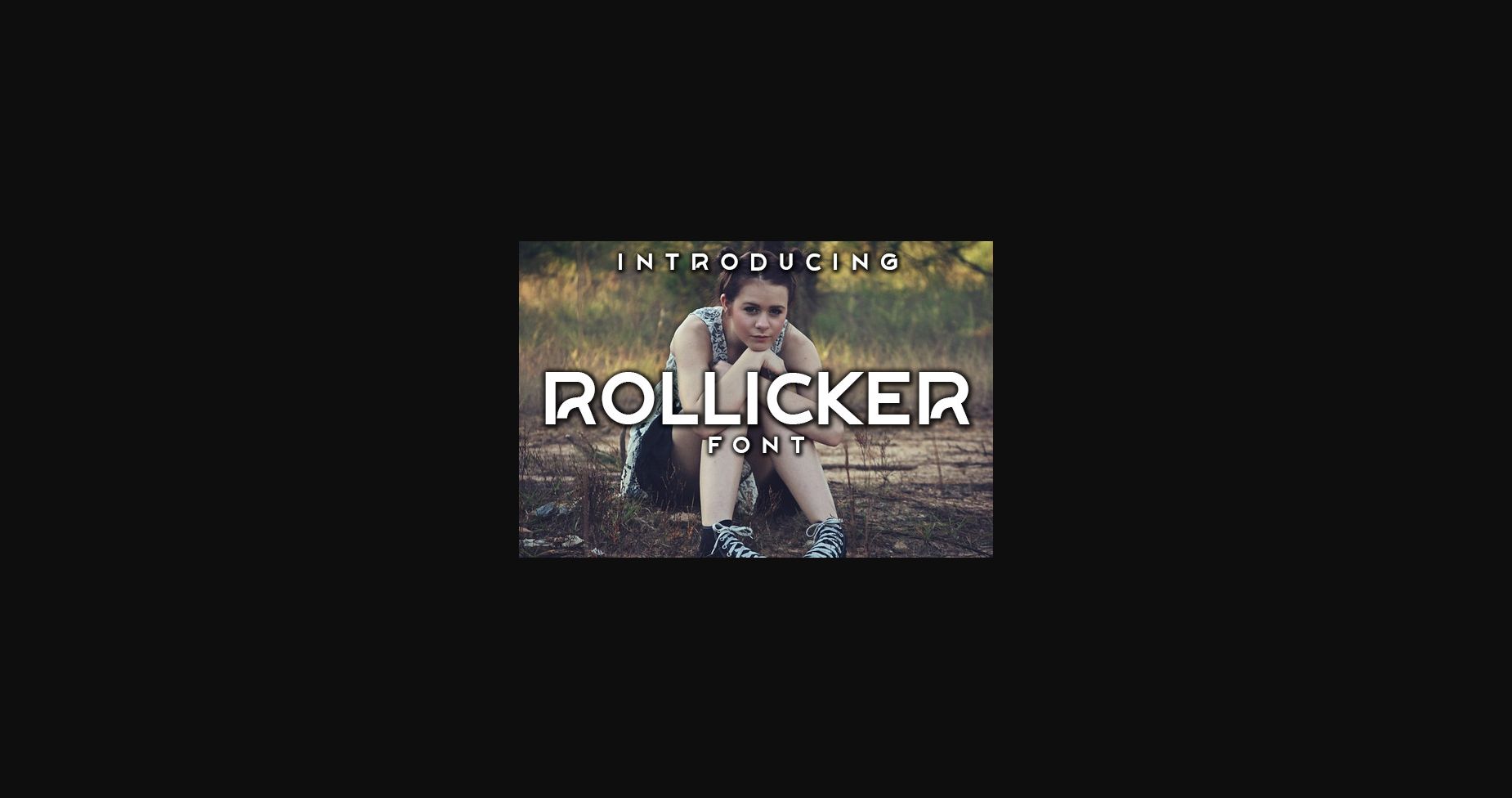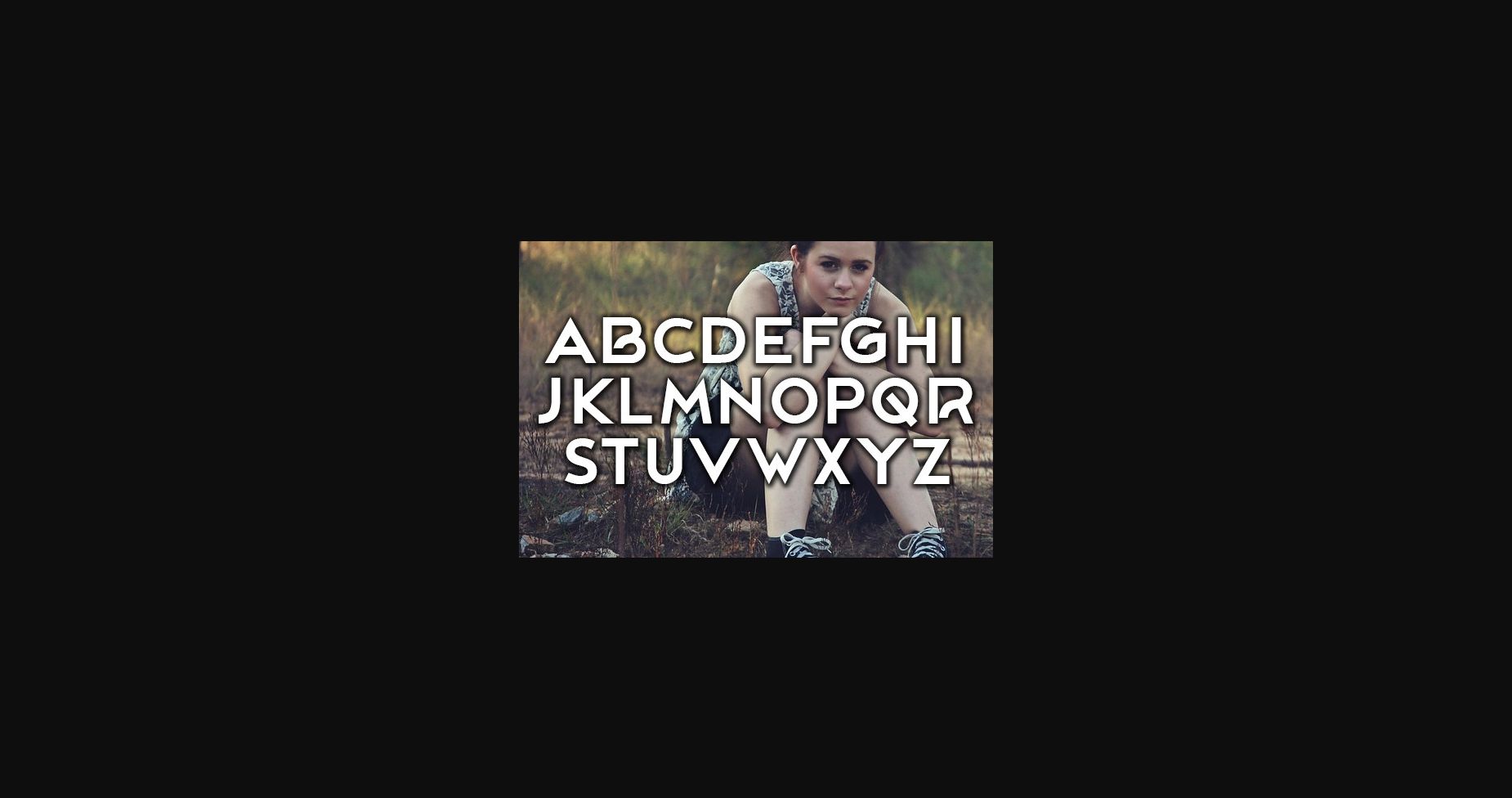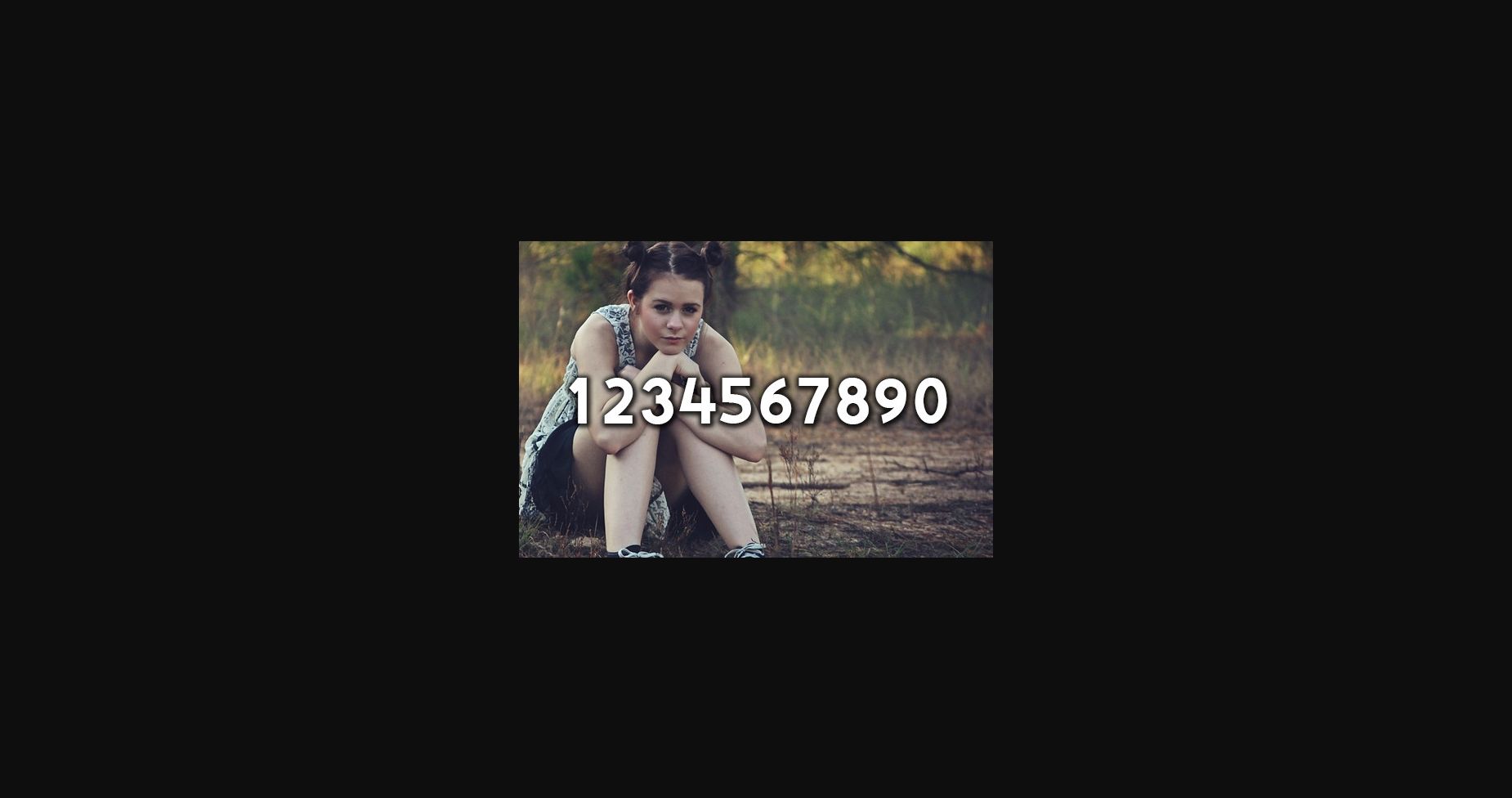
HomeSans Serif FontsRollicker Font Sans Serif Fonts Rollicker Font FacebookXPinterestWhatsApp 1 of 5 ... Rollicker Font Poster 2... Rollicker Font Poster 3... Rollicker Font Poster 4... Rollicker Font Poster 5... About Rollicker Font Rollicker is a cool sans serif font that will fit any of your designs. Use this font on posters, flyers, and t-shirts. DOWNLOAD NOW People also explored Hello Septiemberia Font Humidity Font Nice Looking Font Cartica Font Style Calligraphy Font Restie Font Acoustic House Font Amstilda Alimandi Font 342 0 TagsRollicker Font Previous articleAstella FontNext articleBubbly Font LEAVE A REPLY Cancel reply Comment: Please enter your comment! Name:* Please enter your name here Email:* You have entered an incorrect email address! Please enter your email address here Website: Save my name, email, and website in this browser for the next time I comment. Personal Use Free Leadent Script Personal Use Free Read more about this font Kredit Personal Use Free Read more about this font Kellana Personal Use Free Read more about this font Vuldo Personal Use Free Read more about this font BLOG The 10 Best Handwriting Fonts to Add Personality to Your Designs 10 of the Best Handwriting Fonts for Adding Personality to Your Designs There will undoubtedly be no other better choice than handwriting fonts to give... Top 7 Google Fonts Alternatives for Faster and Privacy-Friendly Web Design (2025) Where to Buy American Fonts Online in 2024 How to Cut Any Font on Cricut: Convert a Font to SVG (Free)